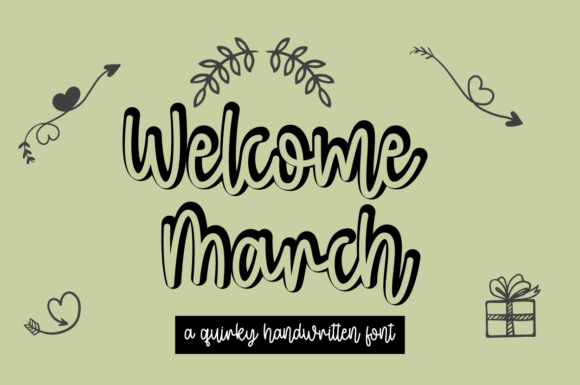
Introducing Welcome March Font, a captivating calligraphy script that will captivate your audience with its elegant charm. Embrace the beauty of handwritten aesthetics and elevate your designs to new heights with this stunning font. Its graceful curves and enchanting details are guaranteed to leave a lasting impression.
Immerse yourself in the world of creativity as you explore the versatile possibilities of Welcome March Font. Whether you're designing wedding invitations that exude romance, thank-you cards that convey heartfelt gratitude, or captivating quotes that inspire and uplift, this font is your perfect companion. Its delicate strokes and playful personality will add a touch of magic to your every creation.
Envision your designs adorned with the elegance of Welcome March Font. Its timeless beauty will enhance logos, business cards, and�らゆるデザイン�手書��タッ��必������デザインを際立����. The possibilities are endless, and your imagination is the only limit.
Step into a realm of visual enchantment as you witness Welcome March Font transform your words into works of art. Its enchanting allure will give life to your designs, capturing the attention of all who encounter them. Prepare to be captivated by the sheer brilliance of Welcome March Font, a masterpiece of typography that will leave you spellbound.
With Welcome March Font, the boundaries of creativity dissolve, and a world of endless design opportunities awaits. Its versatility knows no bounds, catering to a myriad of projects and themes. Unleash your inner artist and let the symphony of your imagination dance upon the canvas of your designs.